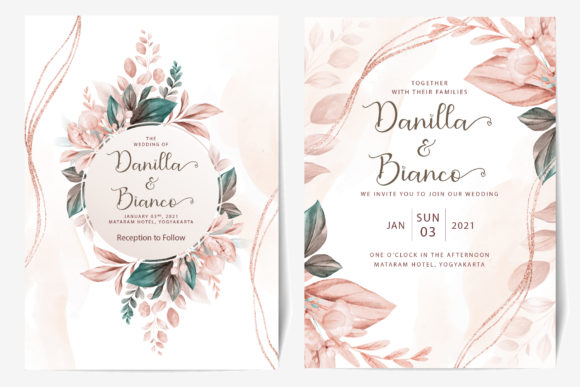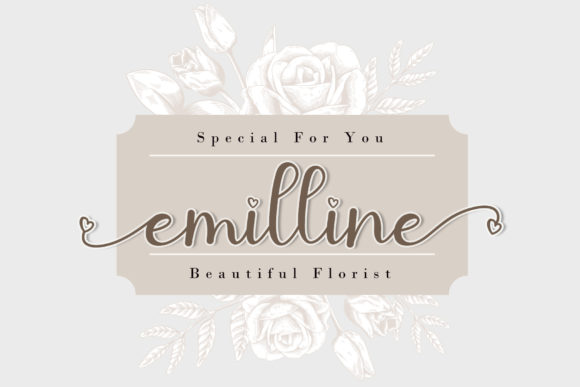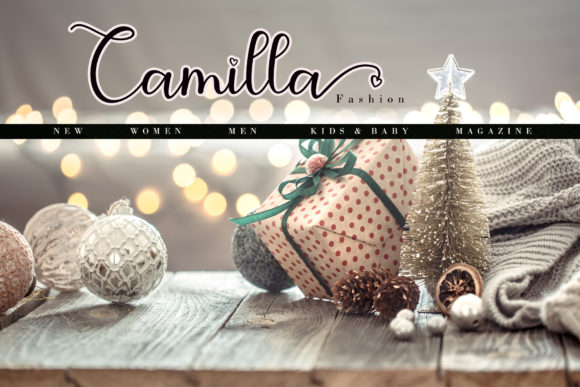
Introduction to Janiella Font
Janiella is a romantic and sweet calligraphy font that has a beautiful selection of ligatures and swashes to choose from.
πŸ‘€ Author AEN Creative Studio
This font is PUA encoded which means you can access all of the glyphs and swashes with ease No matter the topic, this font will be an incredibly asset to your fonts’ library, as it has the potential to elevate any creation.
Key Features of Janiella Font
Why Choose Janiella Font?
Janiella Font offers exceptional quality and versatility, making it a valuable addition to your design toolkit. Whether you’re creating for personal projects or commercial use, Janiella Font delivers professional results.